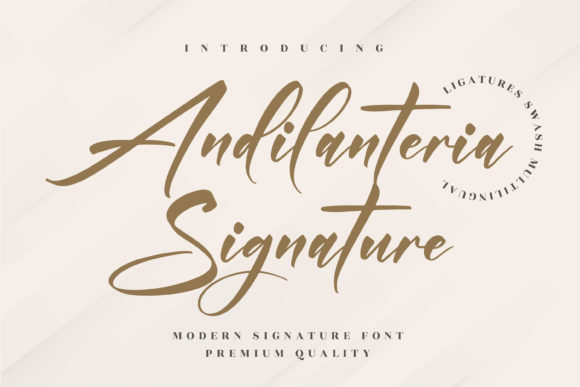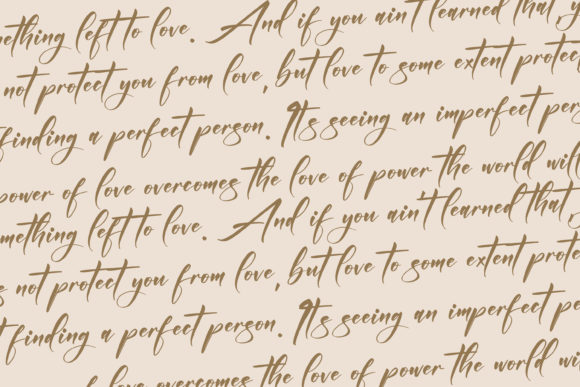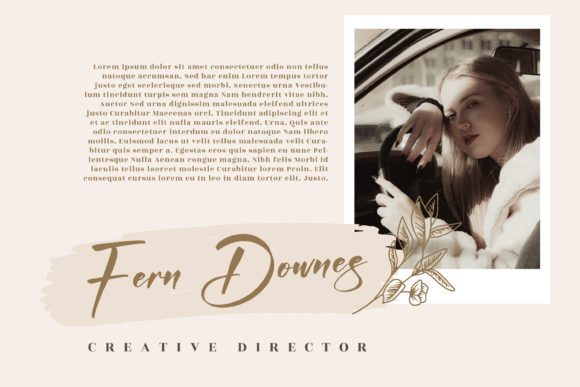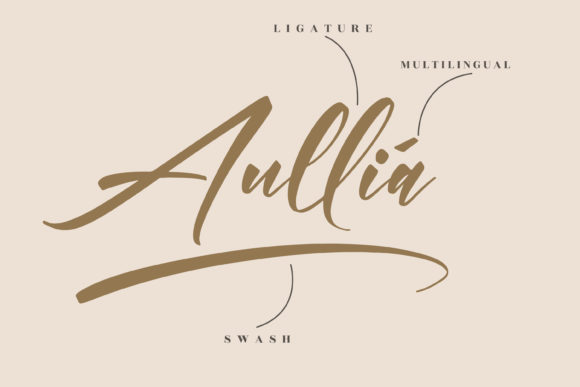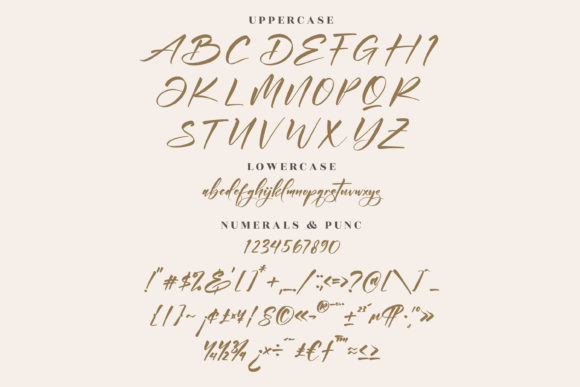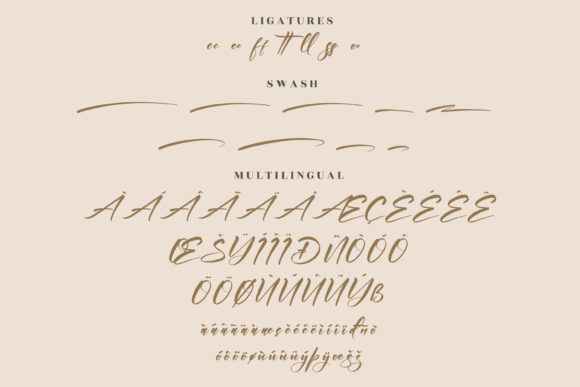
Andilanteria Signature Font
About Andilanteria Signature Font
Andilanteria Signature is a stylish handwritten font. Use it to make your ideas even more realistic and create spectacular designs!